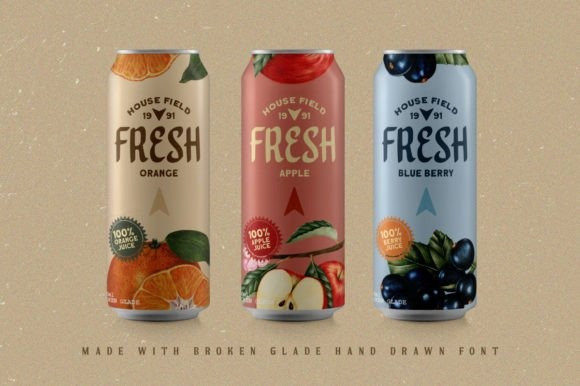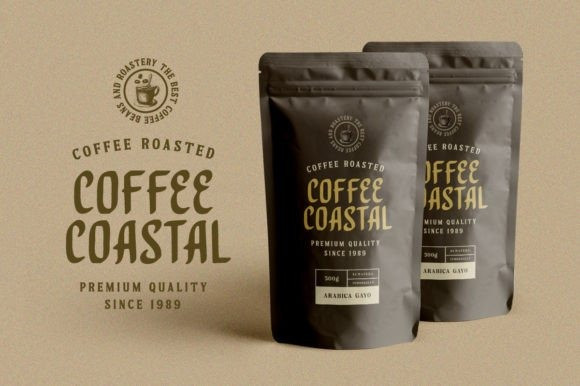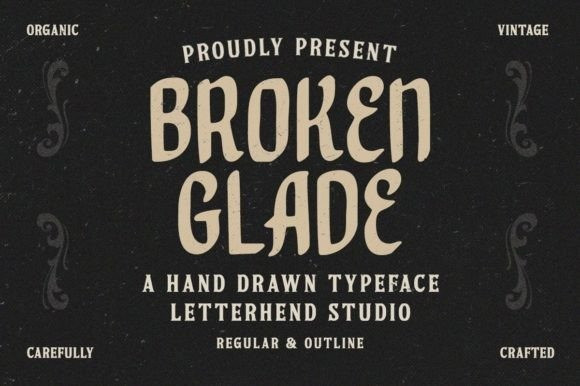
Broken Glade Font
Broken Glade Display Font is a classy, vintage-style display font. No matter the topic, this font will be an incredible asset to your fonts’ library, as it has the potential to elevate any creation.